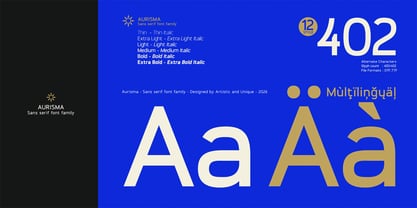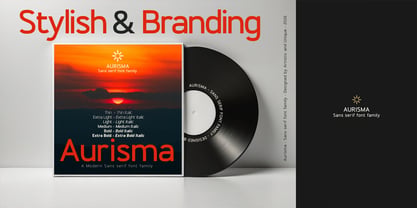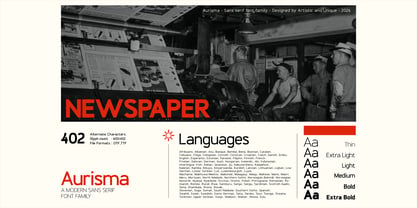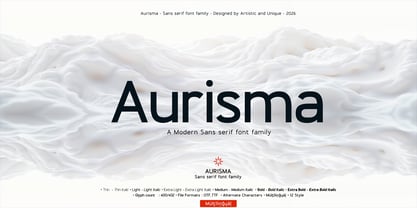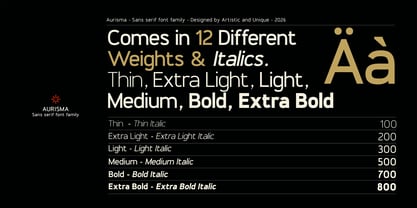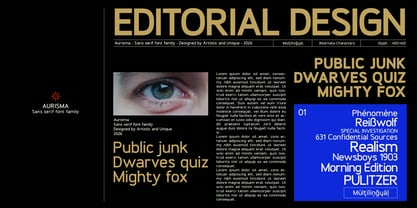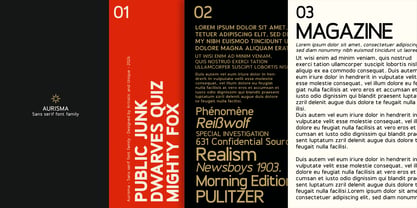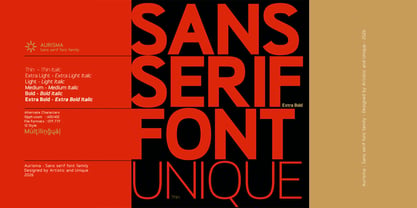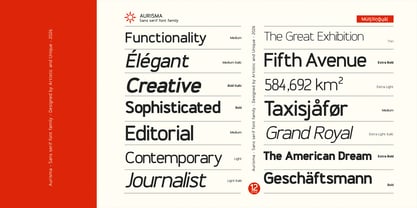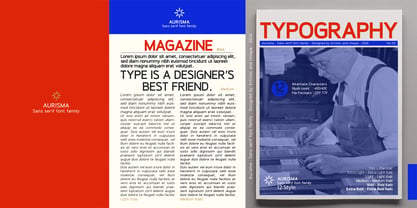
Aurisma
by Artisticandunique
The Aurisma Font Family was designed by Osman Taner Kucukgenc and published by Artisticandunique. Aurisma contains 12 styles and family package options. More about this family
Aurisma – Sans Serif Font Family - 12 Styles - Multilingual Support
Aurisma is a sans-serif typeface family featuring 12 distinct styles and comprehensive multilingual support. Driven by subtle nuances in its character design, Aurisma makes a powerful statement in logo design and brand identity. Across all creative applications, it delivers consistent readability and a measured elegance through its clean aesthetic. This pristine look, paired with a modern-yet-timeless structure, makes it perfect for spaces where clarity and tone are paramount.
While the lighter weights provide a graceful visual presence, the bolder weights stand firm with a solid, balanced emphasis for headlines. Seamlessly integrating into both digital and print projects, Aurisma offers a timeless yet innovative look for designers seeking a reliable, high-performance sans-serif family.
Whether you are crafting editorial layouts, books, magazines, newspapers, packaging, film titles, brand identities, websites, or logos, Aurisma delivers a harmonious blend of aesthetics tailored for contemporary needs.
Features:
• Multilingual support
• 12 distinct styles
• Stylistic alternates and extra symbols
• Rich glyph library (402 glyphs)
• Perfect for branding and editorial design
Designers: Osman Taner Kucukgenc
Foundry: Artisticandunique